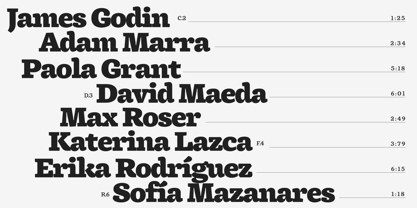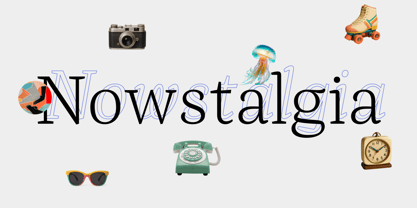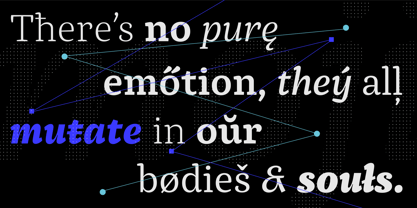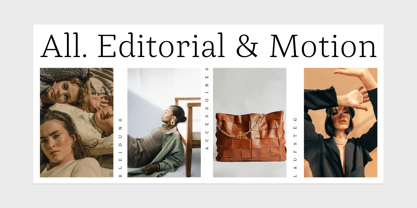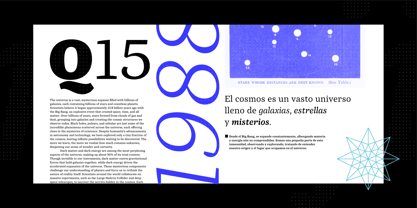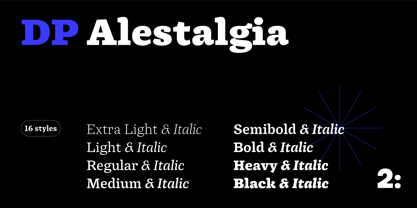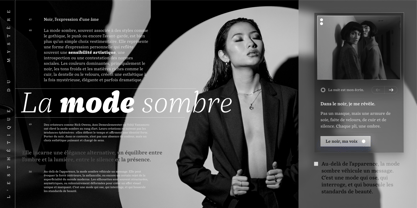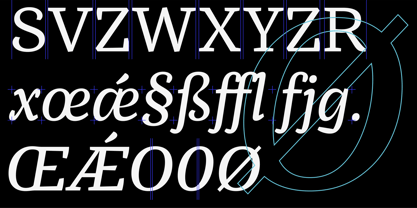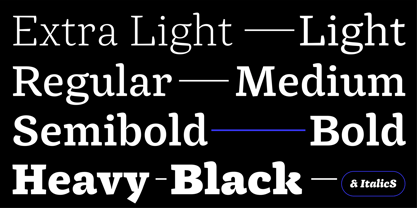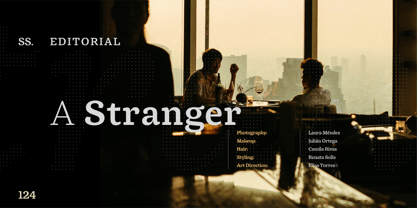
DP Alestalgia
Die Schriftfamilie DP Alestalgia wurde von Victor Gomez entworfen und von Dos Puntos veröffentlicht. DP Alestalgia enthält 16 Stile und Familienpaketoptionen.
DP Alestalgia is a contemporary serif font family designed for both digital and print applications. The design process began in 2016 during a Master degree in Design at Universidad de los Andes (Colombia), culminating in an 8-year journey to completion. Characterized by its harmonious balance and modern aesthetic, this typeface features distinctive curves, a high x-height, and medium contrast, ensuring exceptional clarity and legibility in lengthy texts. The DP Alestalgia family consists of eight weights along with corresponding italics, making it a versatile workhorse for various projects. Its extensive character set supports Western European, Central and Eastern European, Baltic, Turkish, and Romanian languages, enhancing its utility across diverse linguistic needs.